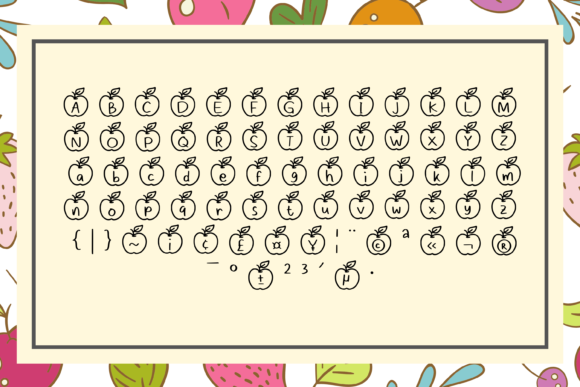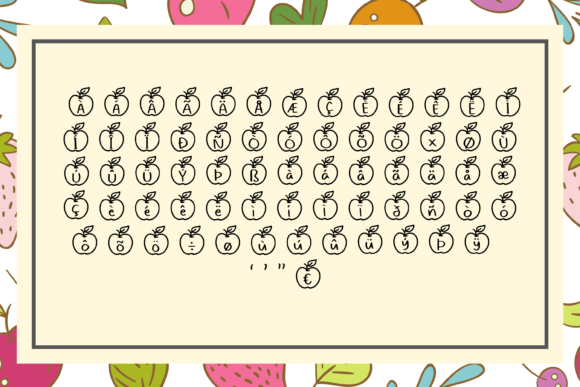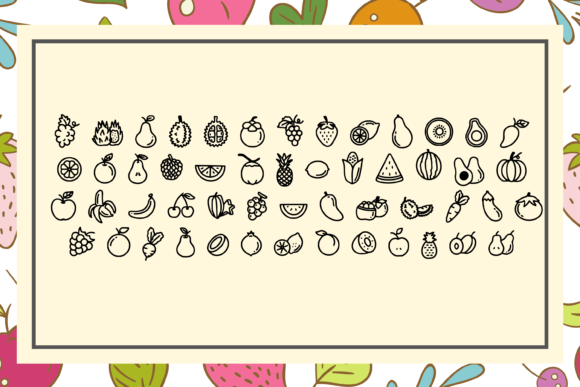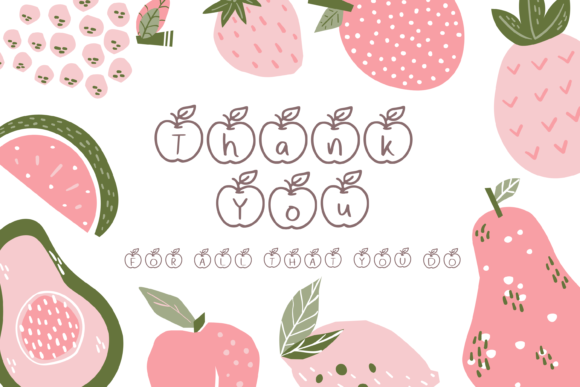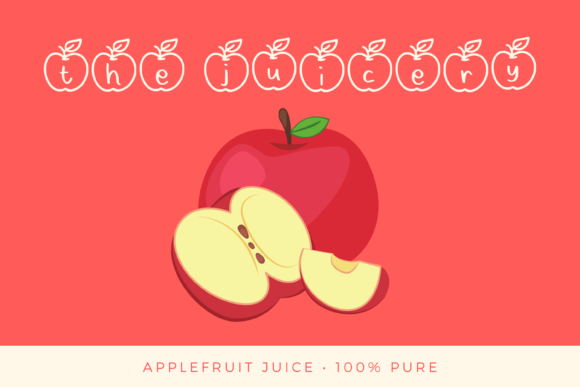
The Sweetest Touch for Your Designs
Have you ever been working on a project and suddenly felt like something is missing? Maybe it’s the perfect font that will bring it all together. For designers, finding that special font can be the difference between a good design and an amazing one. And today, I’m excited to share with you a delightful font that will add a touch of joy to your next project: Apple Fruit Font.
This adorable and stylish duo font is designed to bring a playful, whimsical feel to your designs. From letterheads and titles to stationery and labels, Apple Fruit Font is the perfect fit for a wide range of crafty ideas. Its unique combination of decorative and dingbats will add an extra layer of personality to your work, making it truly stand out from the crowd.
Apple Fruit Font Key Features
- Font Family: Apple Fruit Font is a unique, custom-designed font family that includes a range of styles and weights.
- Character Count: The font family includes a comprehensive set of characters, including uppercase and lowercase letters, numbers, and punctuation marks.
- Unique Characteristics: Apple Fruit Font features a distinctive, hand-drawn design with subtle texture and imperfections, giving it a unique and organic feel.
Apple Fruit Font Review
At first glance, the Apple Fruit Font seems like a whimsical and playful choice for your next design project. ✨ Its rounded edges and smooth lines evoke a sense of fun and approachability. It’s perfect for projects that require a lighthearted tone, such as children’s books or food labels.
One of the strengths of this font is its versatility. ✨ It works well in both digital and print formats, making it a great choice for designers who need to adapt their work across different mediums. Additionally, its legibility is excellent, ensuring that your text is always easy to read.
However, there are some limitations to consider. ⚠️ For one, the font’s rounded shapes can make it difficult to use for projects that require a more serious or formal tone. Additionally, the font’s smooth lines can sometimes make it appear too cartoonish or childish. ⚠️
Overall, the Apple Fruit Font is a solid choice for designers who need a playful and approachable font. While it may not be suitable for all projects, it’s a great option for those who want to add a touch of whimsy to their designs.
- Playful and approachable tone
- Smooth lines and rounded edges
- Excellent legibility
- Versatile for digital and print formats
- Not suitable for formal or serious projects
Tips for Getting the Most Out of Apple Fruit Font
For the best results, use Apple Fruit Font in conjunction with bold or italic text to create visual interest.
Experiment with different font sizes and colors to create a unique visual style.
Apple Fruit Font is perfect for:
Food and beverage branding
Health and wellness marketing
Children’s educational materials